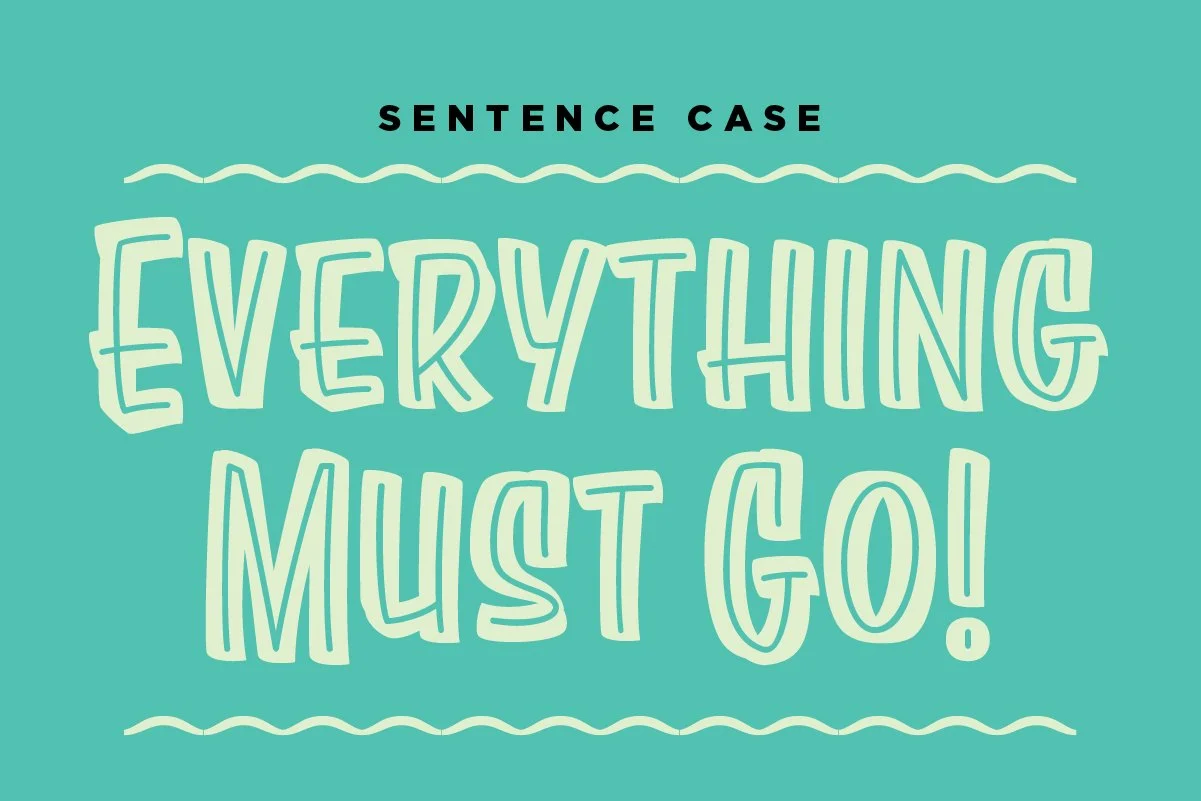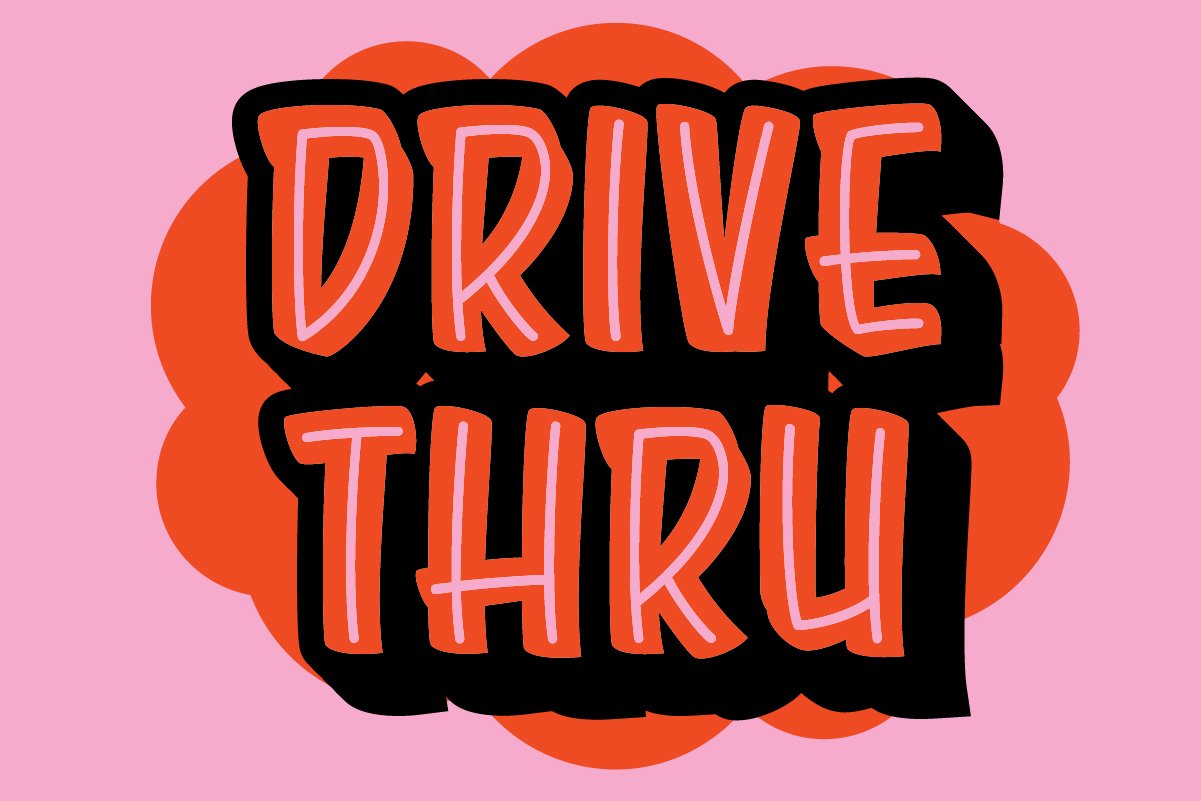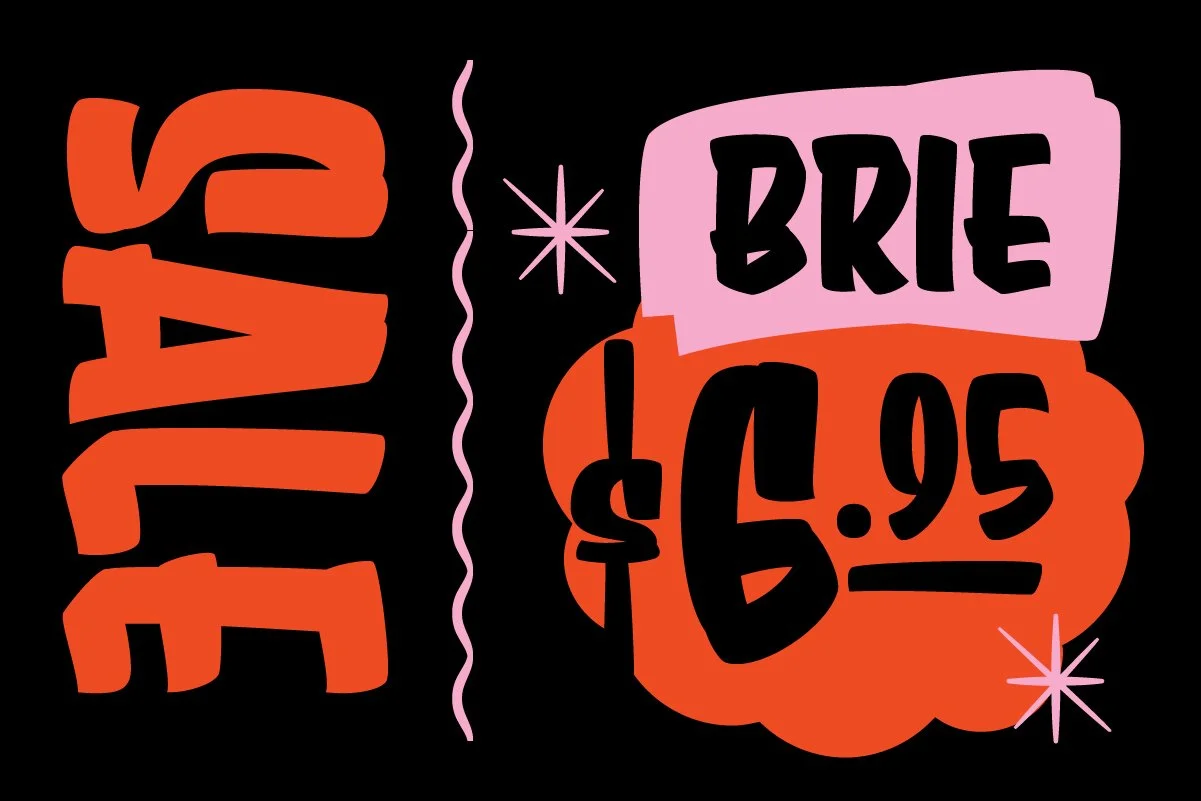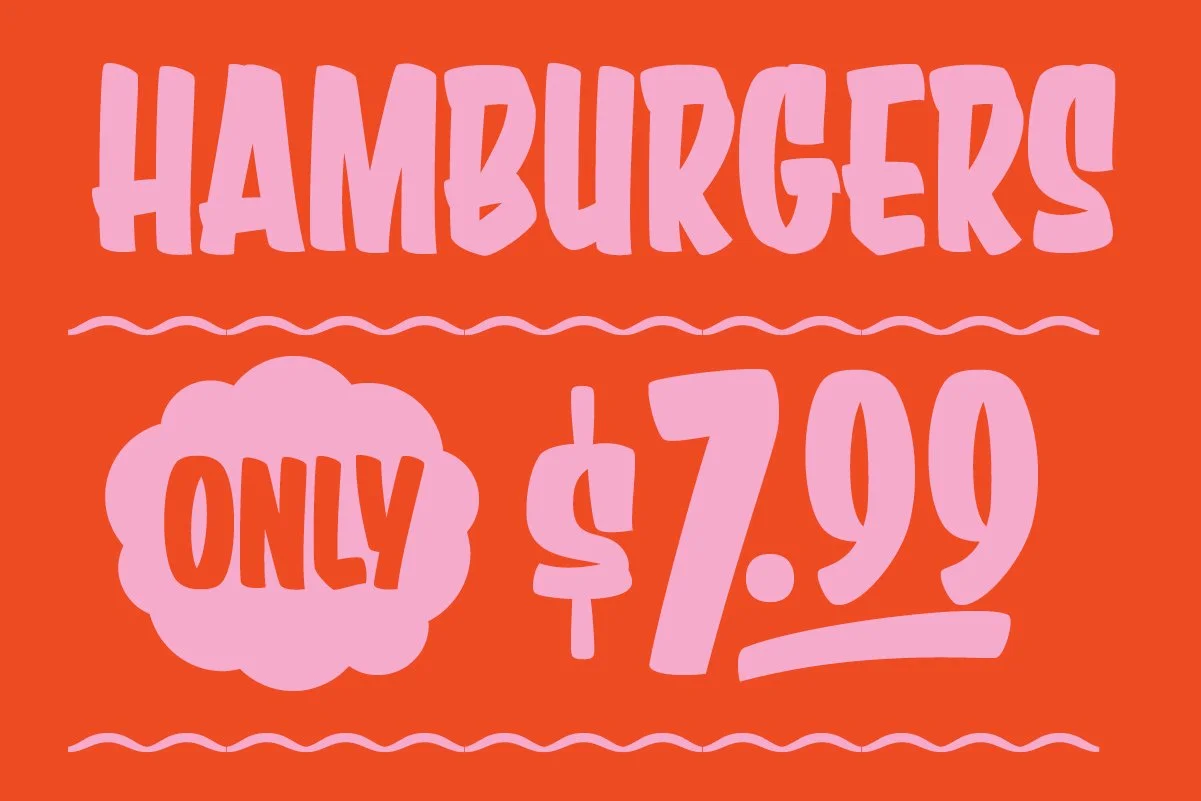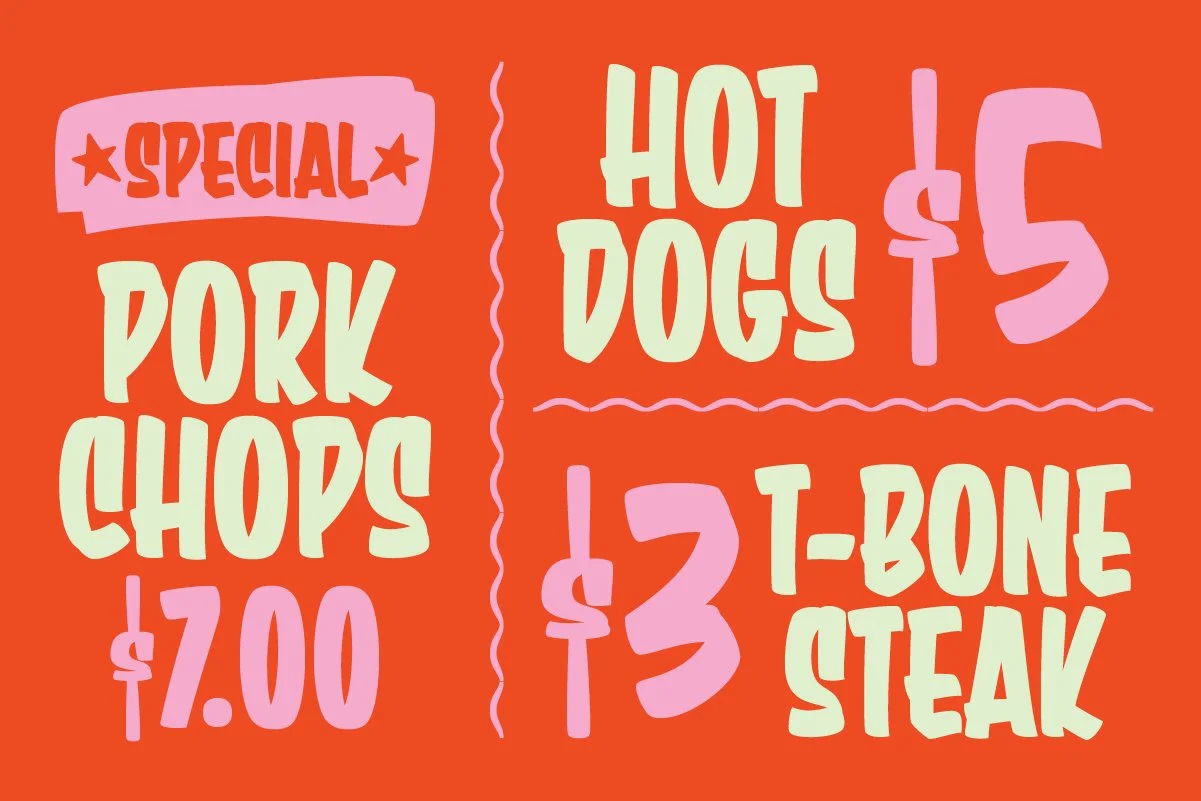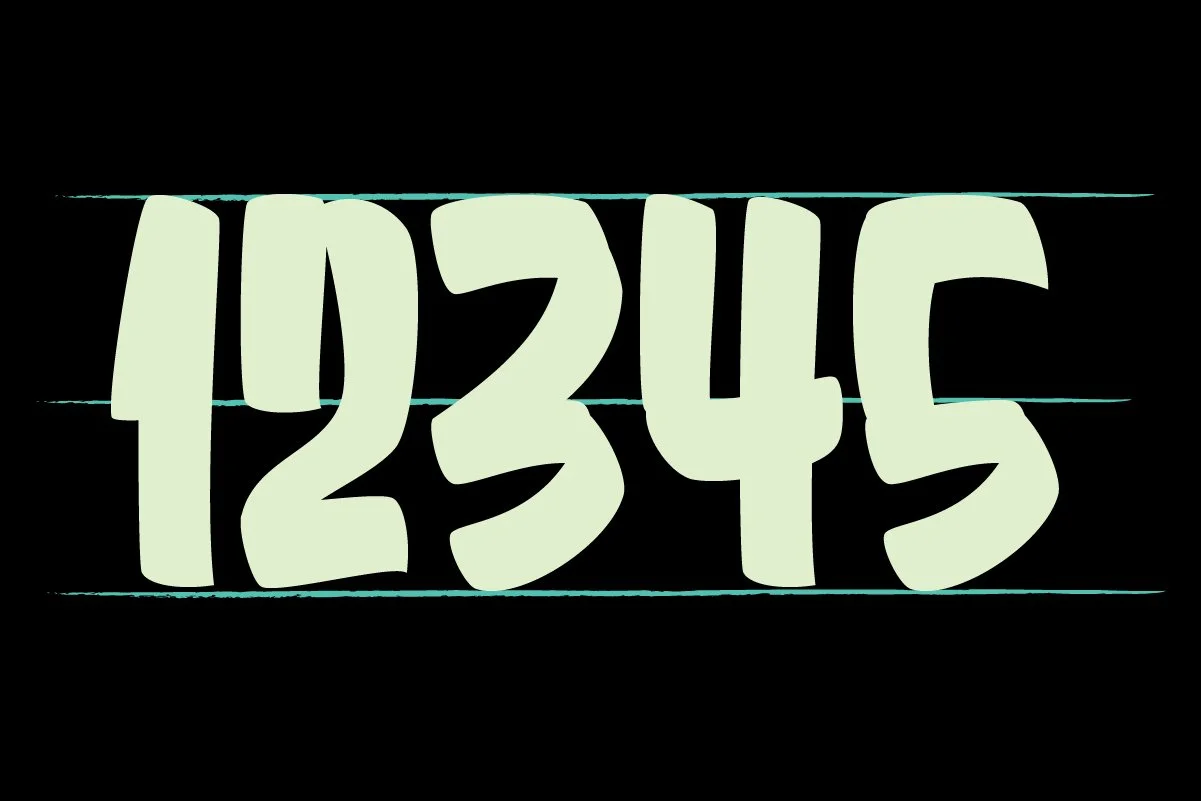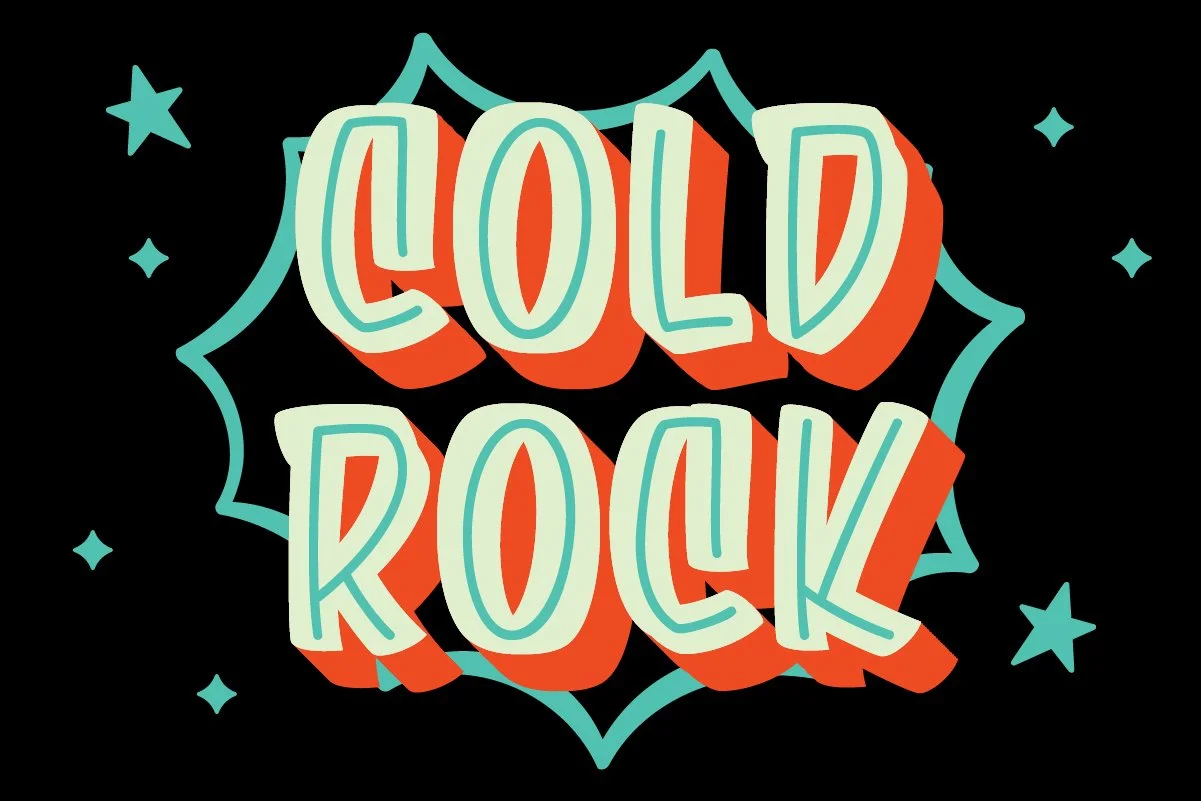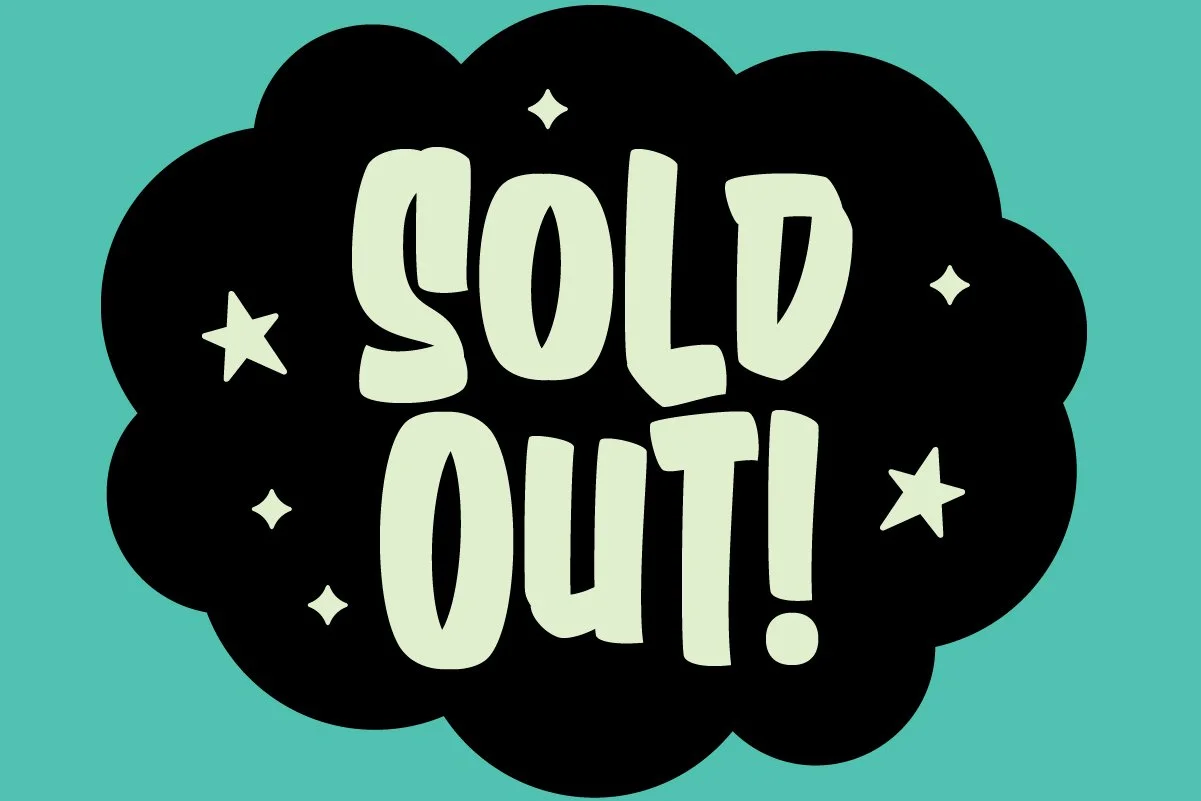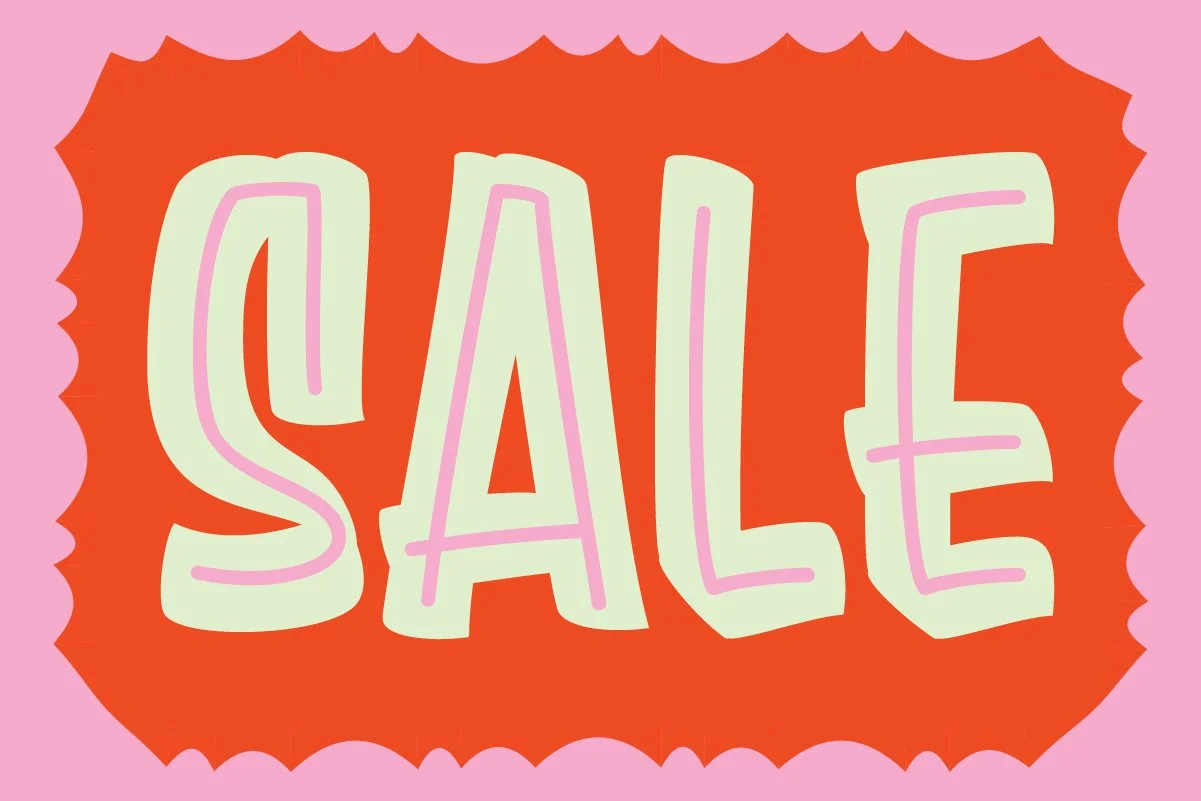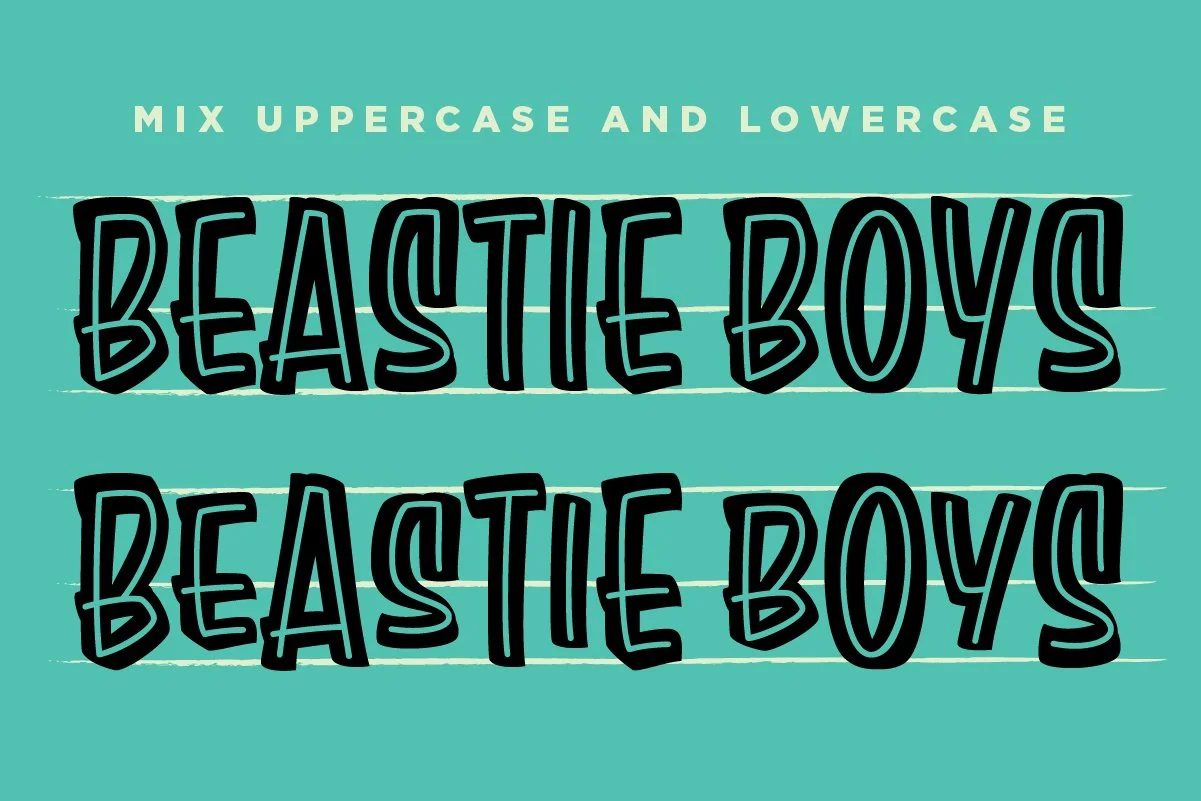
RIGHT PRICE FONT
RIGHT PRICE is a display font created by Australian Illustrator Travis Price. A nod to old concert posters and hand painted display cards RIGHT PRICE is the perfect choice for adding some Ol Skool Flavour to your designs.
RIGHT PRICE comes in three styles: Regular, Inline & Bold. The casual script is set to the lowercase characters in each style. Also included in the package is the illustrator file of the sample images.